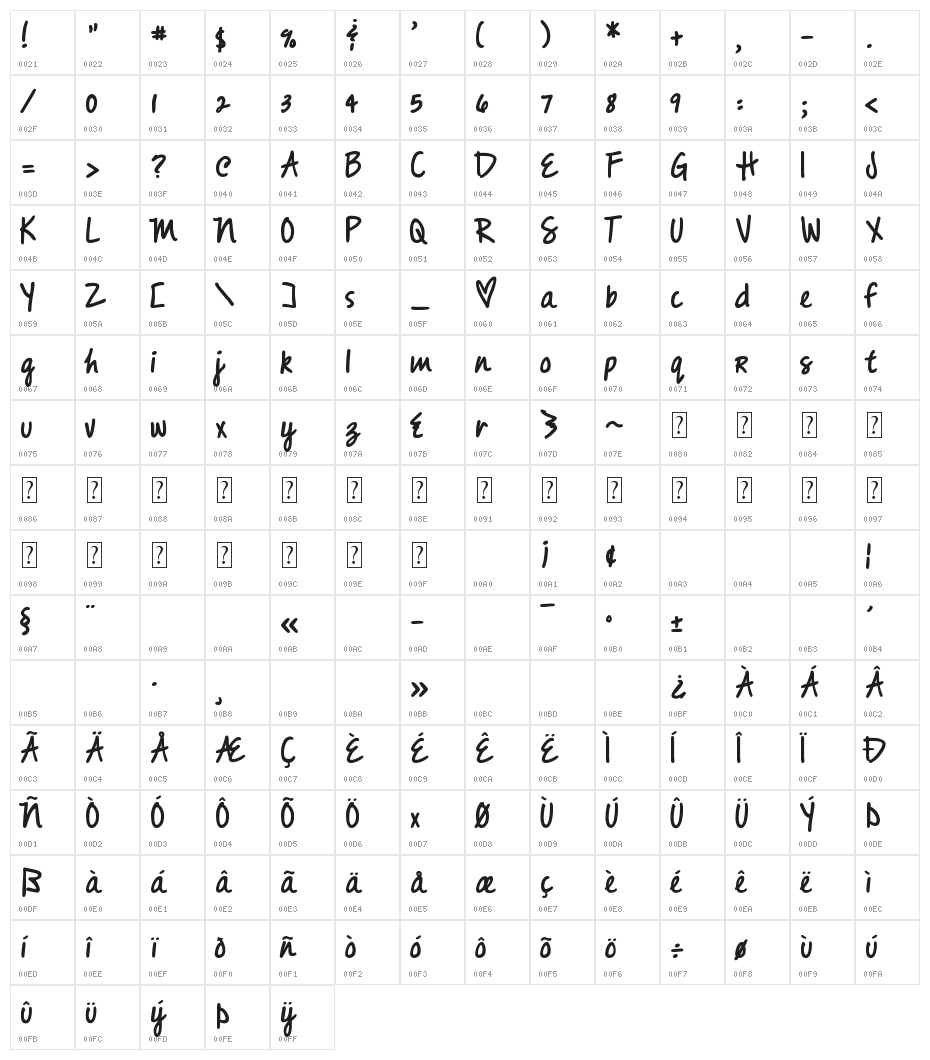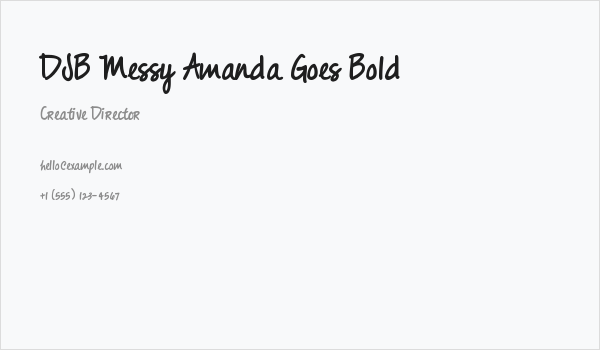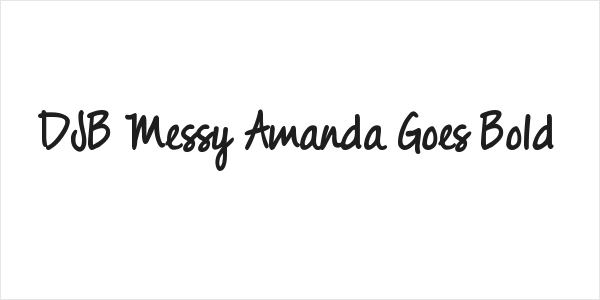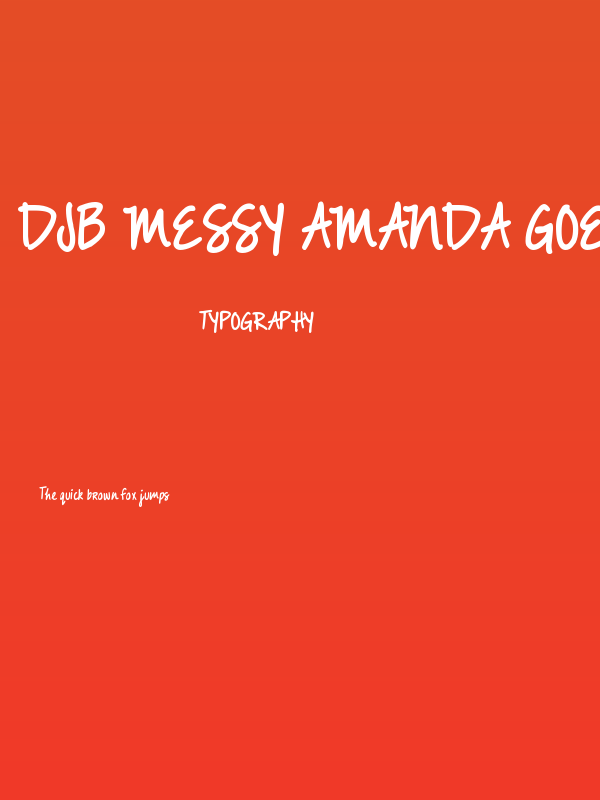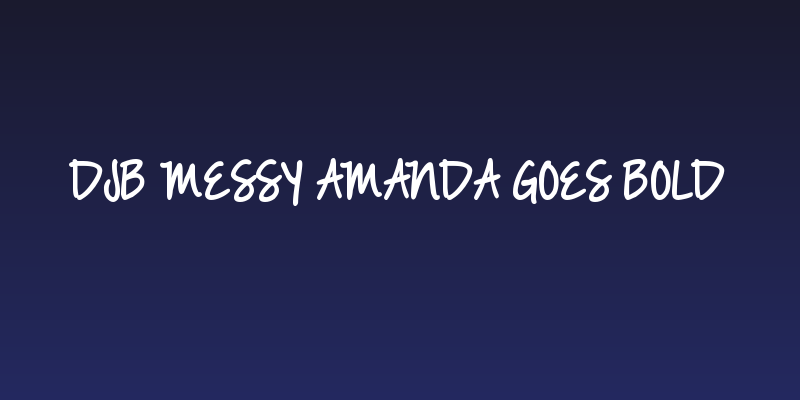
DJB Messy Amanda Goes Bold Font
DJB Messy Amanda Goes Bold Description
This font exhibits a playful and casual handwritten style, characterized by its bold and slightly irregular strokes. The letters have a dynamic flow, with varying angles and a natural, spontaneous appearance. The uppercase and lowercase characters maintain a consistent style, with rounded edges and a slightly slanted orientation, enhancing the informal feel. The numerals and special characters follow the same aesthetic, ensuring a cohesive look across all elements. This font's energetic and friendly vibe makes it suitable for projects that require a personal touch.
| Use Case | Logos, Headlines, Informal Invitations |
| Proposed Projects | Ideal for greeting cards, children's books, playful branding, and social media graphics. |